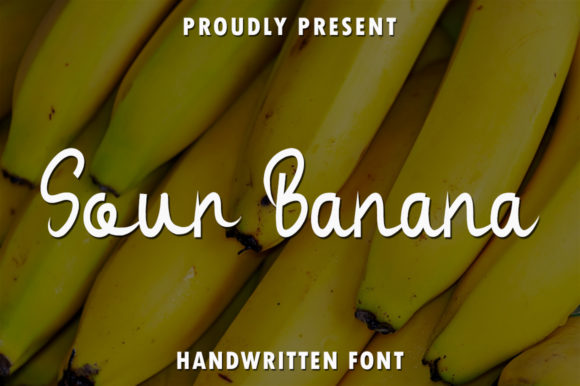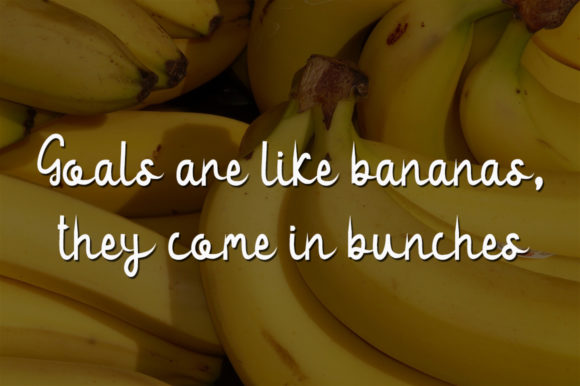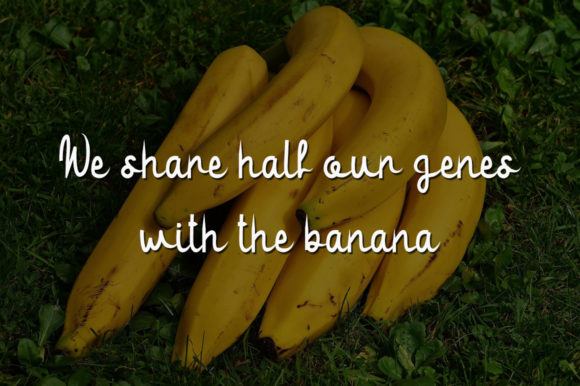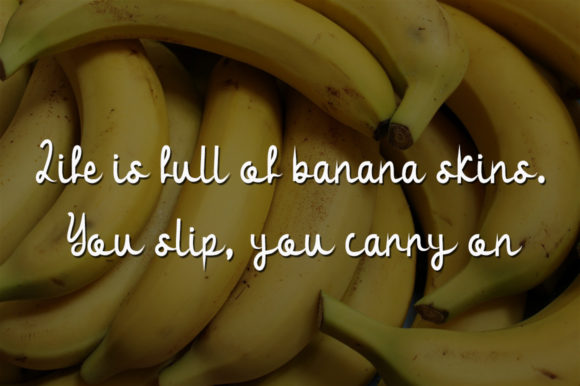
About Sour Banana Font
Sour Banana is a simple and friendly handwritten font that brings a touch of creativity and brightness to any project. With its playful and approachable style, this font is perfect for adding a fun and lighthearted element to your designs.
The simplicity of Sour Banana allows it to shine in various design contexts. Its clean and legible letterforms make it easy to read, ensuring that your message gets across effectively. Whether you’re designing posters, invitations, or social media graphics, Sour Banana can add a touch of personality and friendliness to your project.
This font’s friendly nature makes it a great choice for projects aimed at capturing attention and creating a positive impression. It can be used to convey a sense of joy, playfulness, or informality, depending on the tone and style of your design. Whether you’re working on branding, packaging, or promotional materials, Sour Banana can bring a fresh and inviting feel to your creations.
Additionally, Sour Banana’s handwritten style adds a personal and authentic touch to your designs. It emulates the charm of natural handwriting, with subtle variations and imperfections that give it a warm and human feel. This can help create a connection with your audience and make your designs feel more relatable and engaging.
The versatility of Sour Banana allows it to be used across a wide range of projects. From logos and branding materials to greeting cards and website designs, this font can brighten up any project and make it more visually appealing. Its friendly and approachable nature ensures that it resonates with a broad audience.
In summary, Sour Banana is a simple and friendly handwritten font that adds a creative and bright touch to any project. Its playful style, legibility, and handwritten charm make it ideal for various design applications. Whether you’re aiming to create a joyful brand identity or design eye-catching promotional materials, Sour Banana can bring a fresh and inviting feel to your designs.